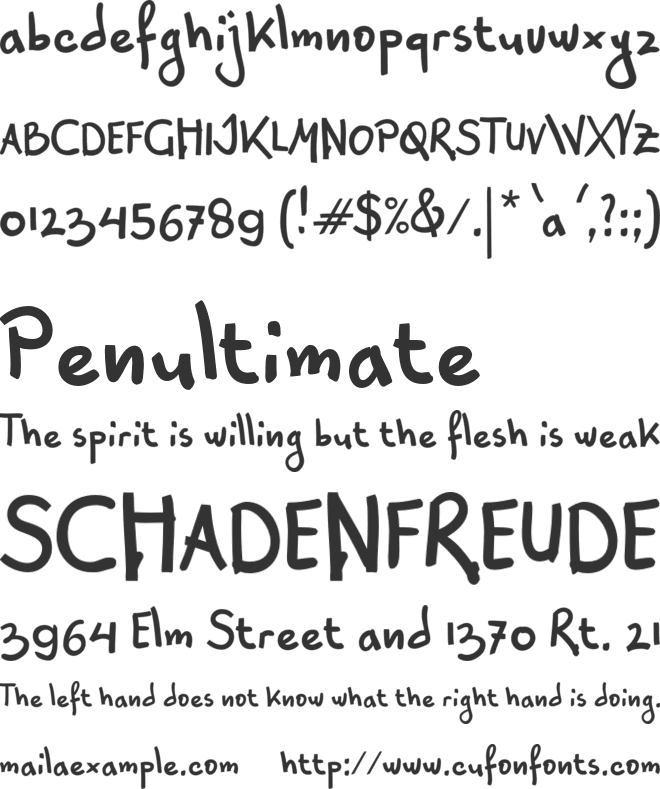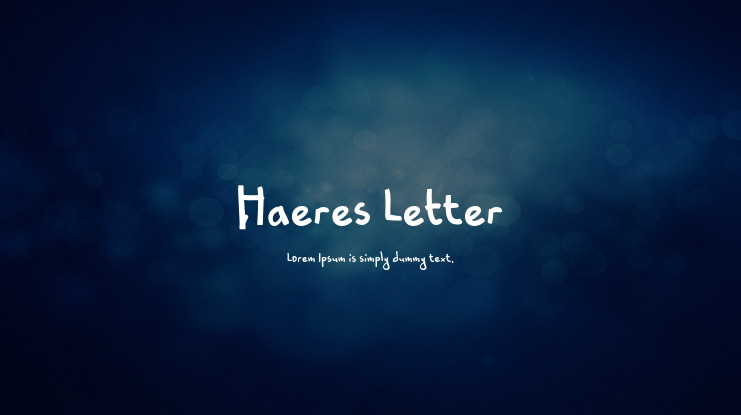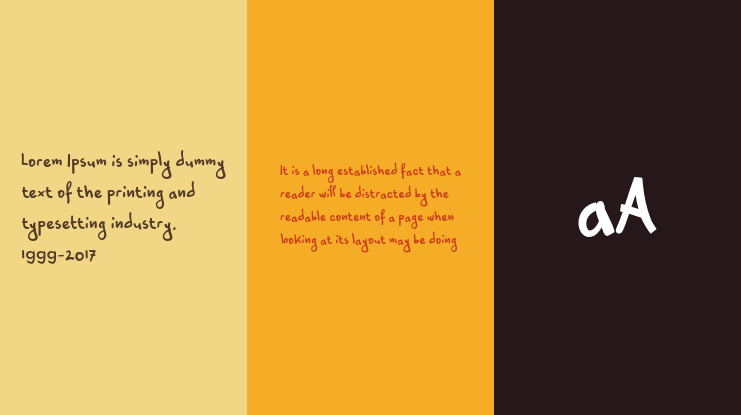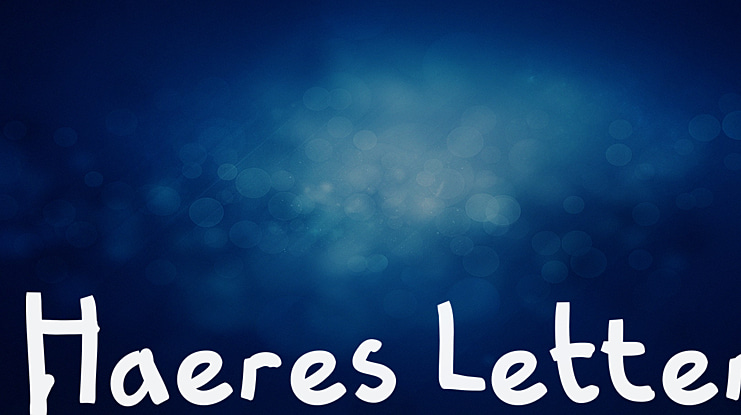
Haeres Letter Font
Pollux of Geminorum
Inspired from Indonesian hardline Islamist scholar, Muhammad Rizieq Shihab. The founder and leader of the Islamist group Islamic Defenders Front.